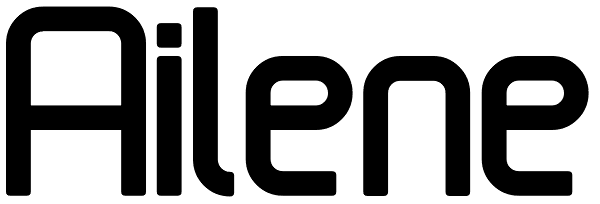
Ailene
Ailene is a type family designed in tribute and named after the creator's late Grandmother. It is an all-purpose font that can be used in headlines as well as body copy.